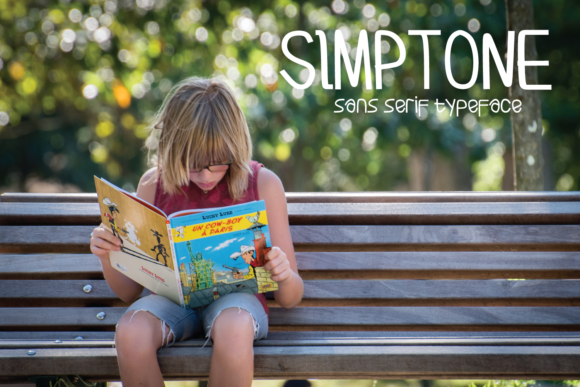
Embrace the Elegance of Simptone: A Font Symphony Designed for Reading Bliss
In a world saturated with digital distractions, finding a font that enhances the joy of reading is a literary treasure. Introducing Simptone, a sans serif font crafted with meticulous attention to detail, offering an unparalleled reading experience. Its clean lines, generous character spacing, and rhythmic flow create an oasis of clarity, allowing words to dance gracefully across the screen or printed page.
With Simptone, reading becomes an immersive journey, a symphony of letters harmonizing to deliver your thoughts and ideas with effortless elegance. Its carefully balanced proportions ensure that each character retains its distinct personality while blending seamlessly into the narrative, creating a visual tapestry that draws the reader deeper into the world of words.
Experience the Magic of Simptone
Simptone is not merely a font; it's a gateway to literary enchantment. Its carefully chosen curves and angles evoke a sense of serenity, inviting readers to lose themselves in the written word. Whether you're crafting a captivating novel, designing a digital masterpiece, or creating heartfelt greeting cards, Simptone becomes your trusted companion, transforming ordinary text into an extraordinary visual feast.
For the Discerning Reader: Simptone's Alluring Qualities
1. Clarity Unparalleled: Simptone's crisp lines and generous character spacing create a visual symphony, ensuring effortless readability even during extended reading sessions.
2. Versatility Personified: Whether you prefer the sophistication of print or the dynamism of digital, Simptone seamlessly adapts to your medium, enhancing the impact of your words across various platforms.
3. A Timeless Aesthetic: Simptone transcends fleeting trends, embodying a classic elegance that remains captivating regardless of the era. Its timeless appeal ensures that your creations retain their charm and relevance for years to come.
4. Simplicity with Purpose: Simptone's understated beauty belies a deep understanding of typography. Its simplicity is not a lack of detail but a deliberate choice, allowing the written word to take center stage.
5. A Font for All Occasions: From crafting heartfelt greeting cards to designing captivating presentations, Simptone's versatility knows no bounds. It gracefully complements any creative endeavor, adding a touch of sophistication and charm.
Embrace the Simptone Experience
Simptone is more than just a font; it's an invitation to rediscover the joy of reading, to immerse yourself in the written word, and to let your creativity soar. Its timeless beauty and versatility make it the perfect choice for discerning readers and designers alike.